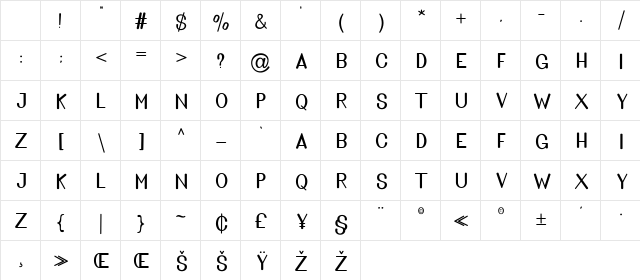
Complete Golden Bridge Sans Regular glyph index. Displaying only characters natively supported by Golden Bridge Sans Regular font.
Golden Bridge Sans is a composed and adaptable typeface that performs quietly and consistently across a wide range of design contexts.